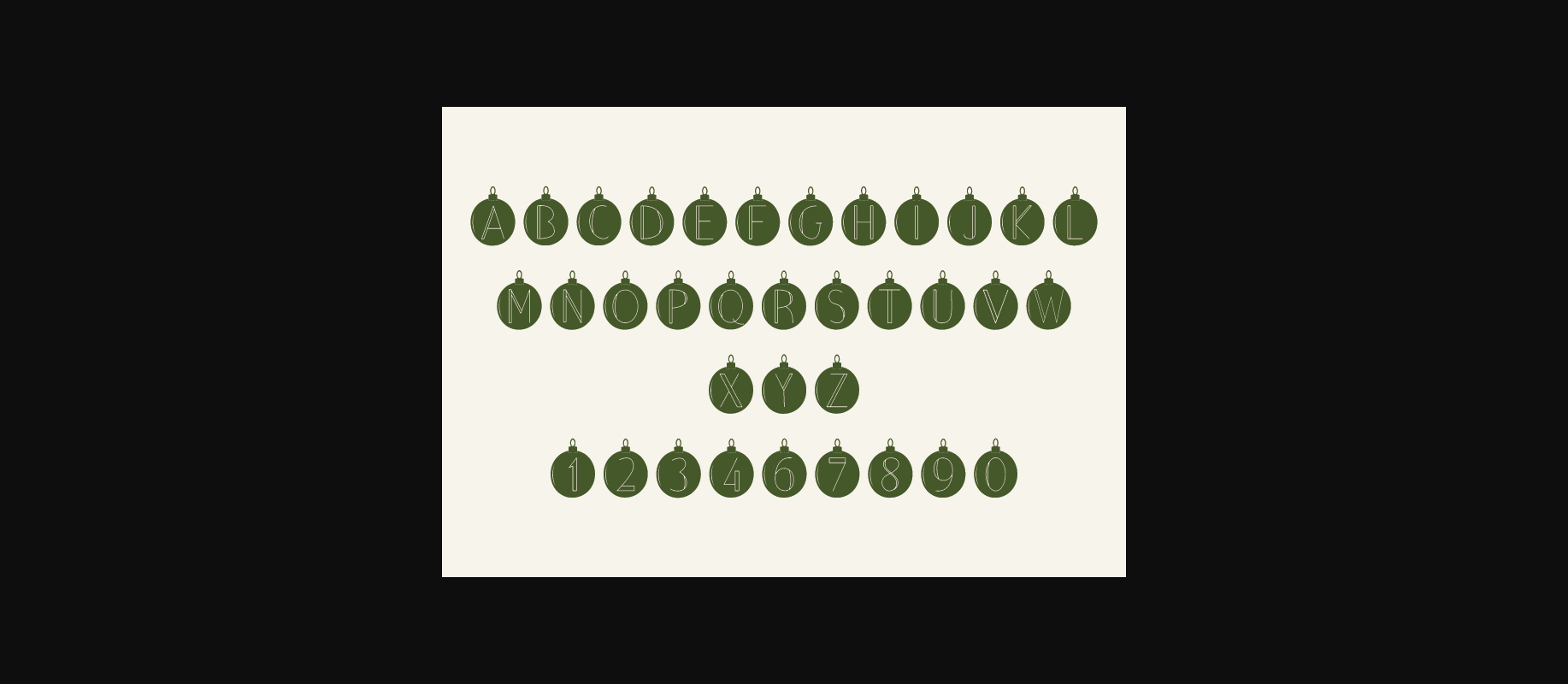
Christmas Ball Font
About Christmas Ball Font
Christmas Ball font is a delightful all-caps typeface that embodies the festive spirit of the holiday season. Each letter is beautifully enclosed within a Christmas ornament, creating a charming and decorative effect. Use this font to add a touch of yuletide magic to your holiday cards, banners, and seasonal designs. Let your text shine like holiday ornaments with Christmas Ball font!